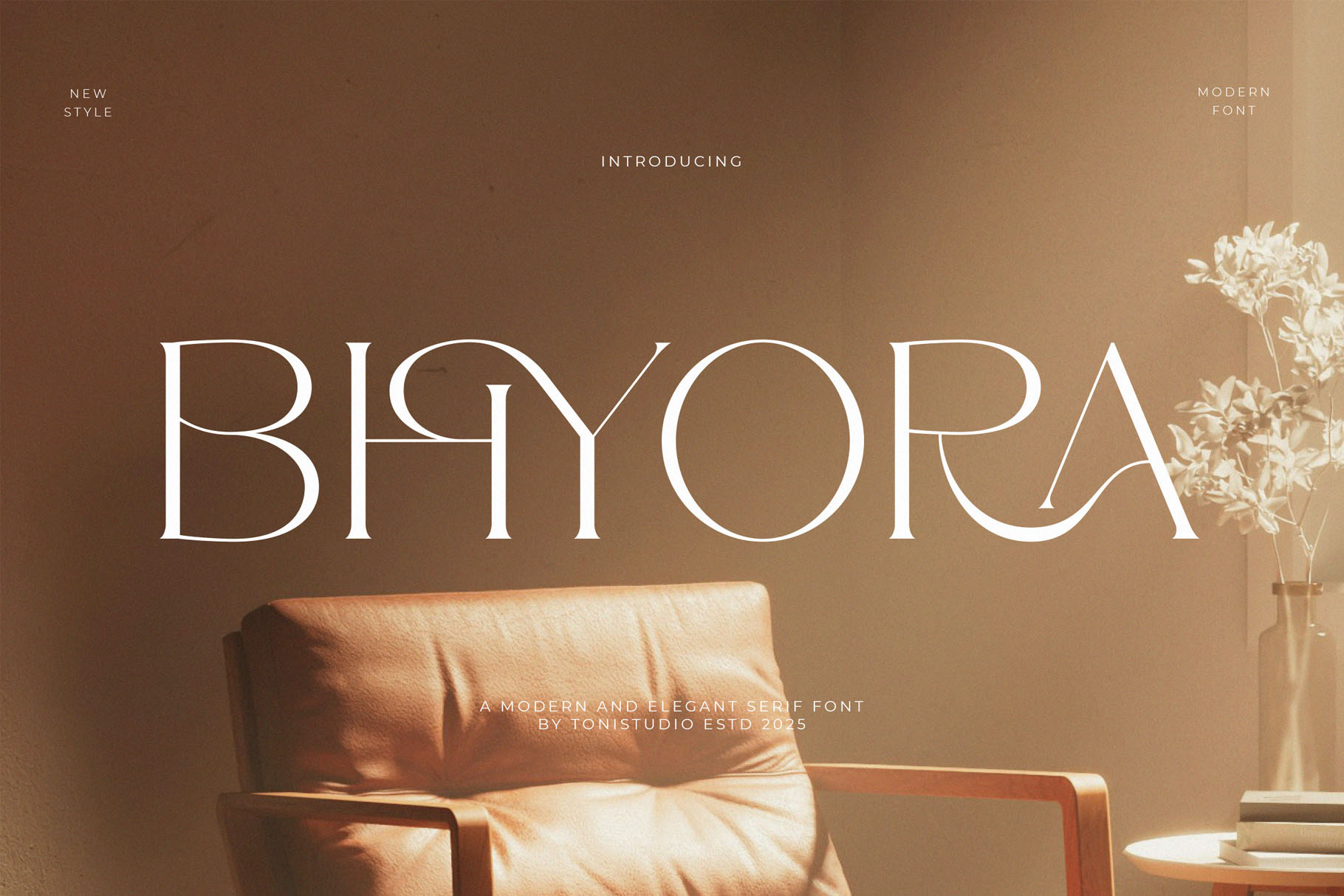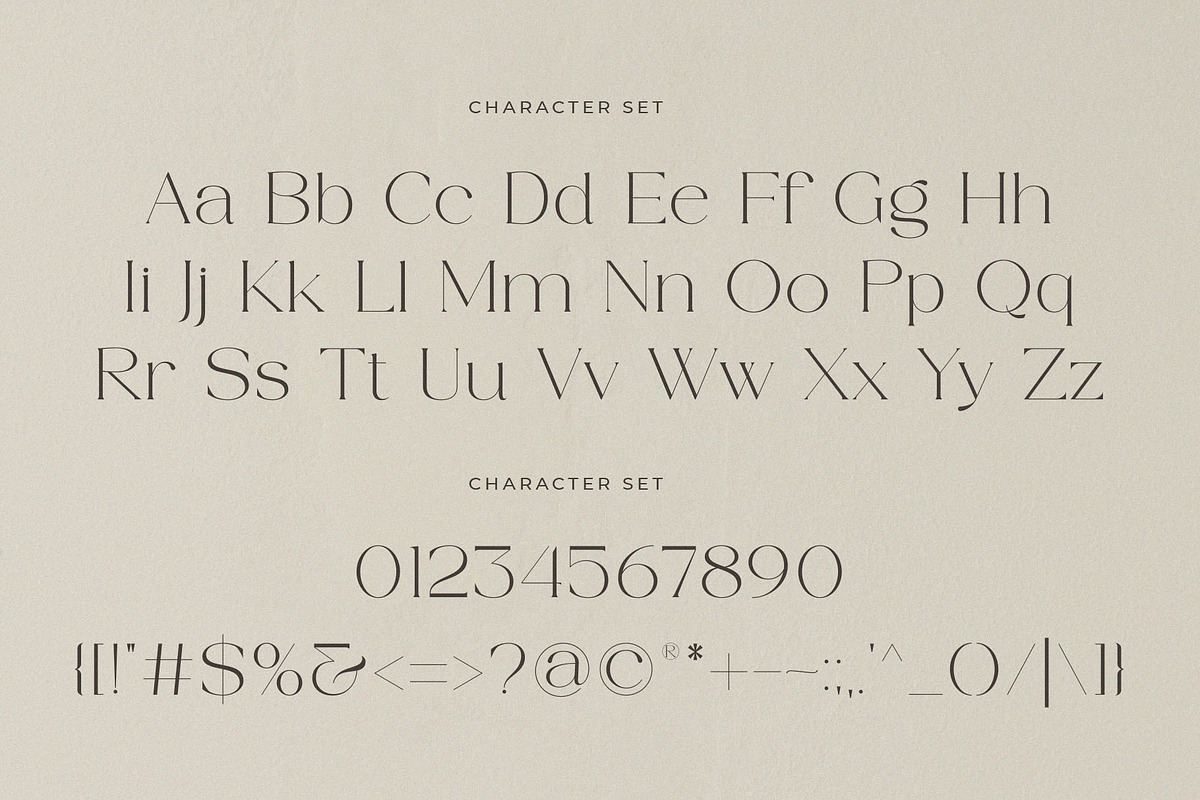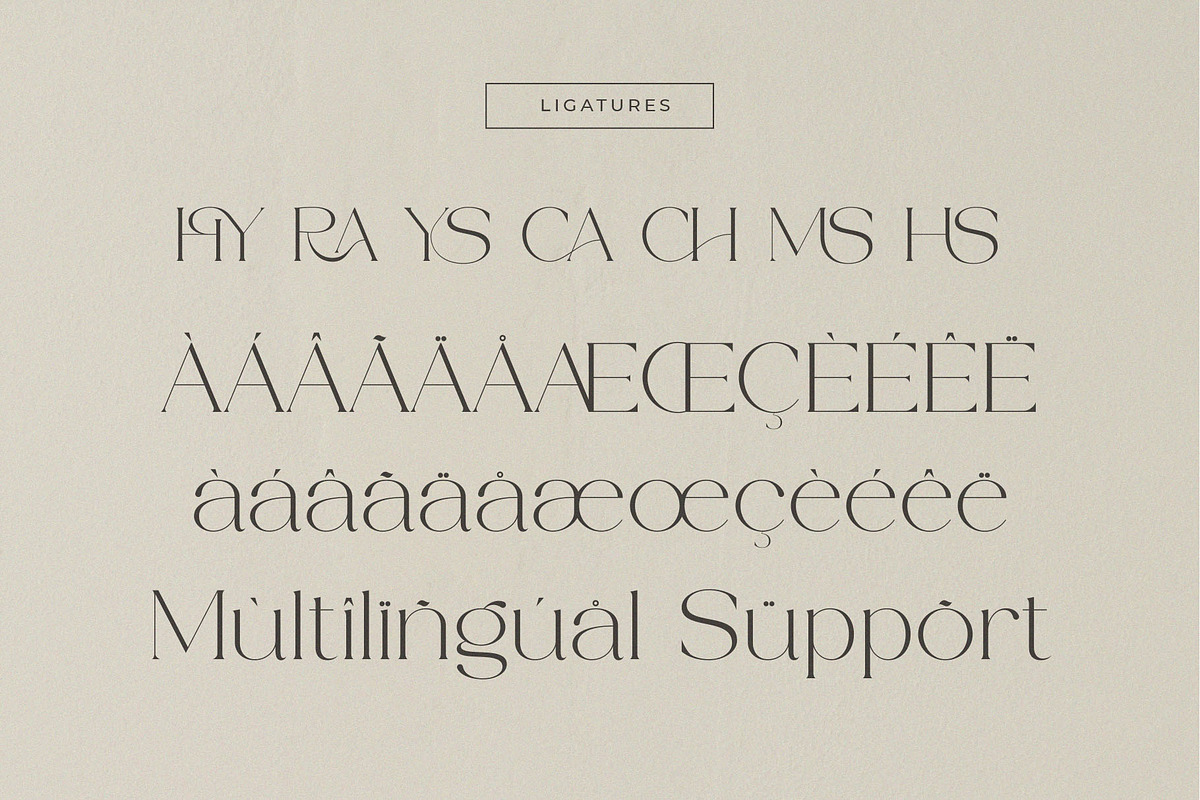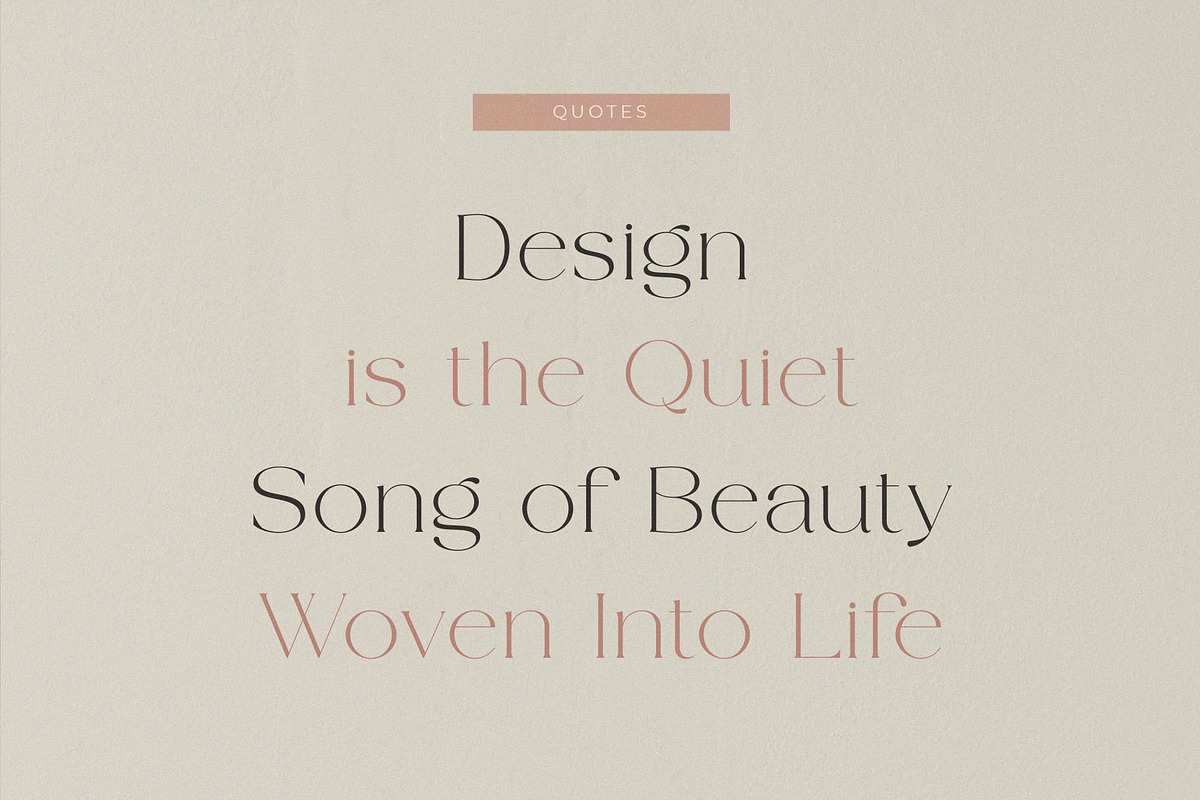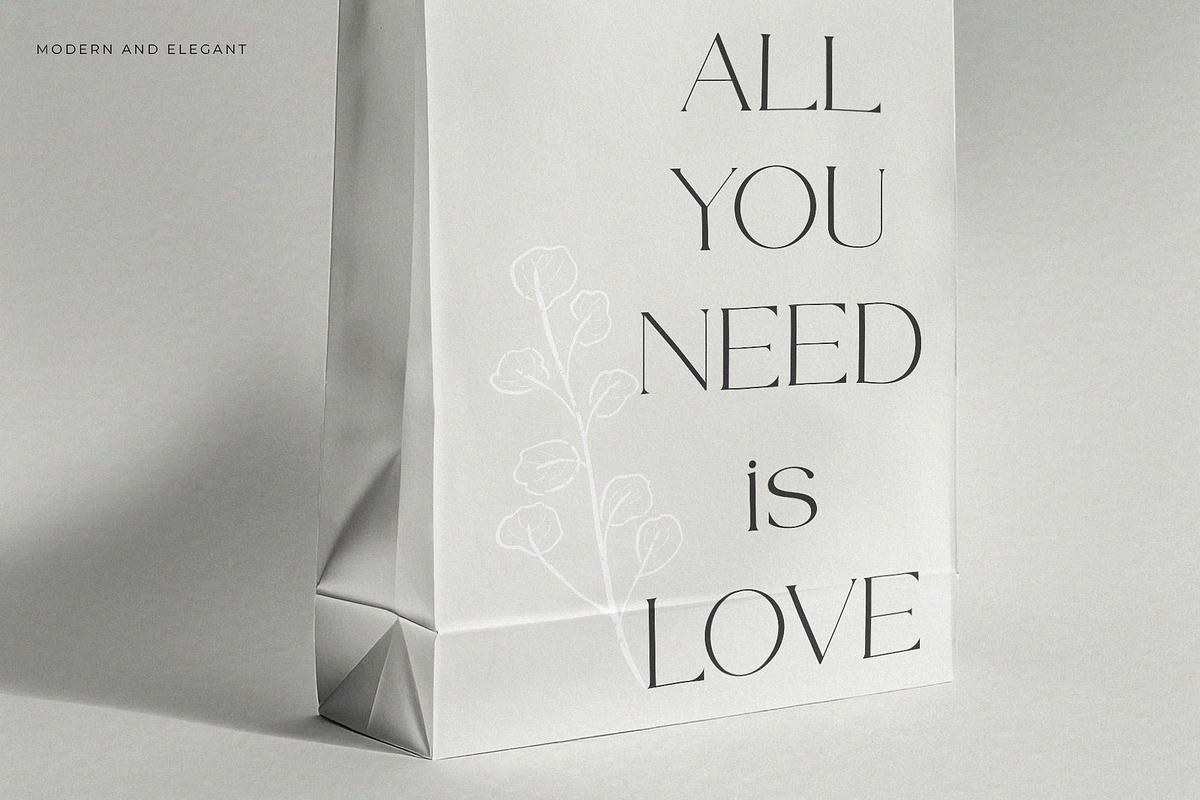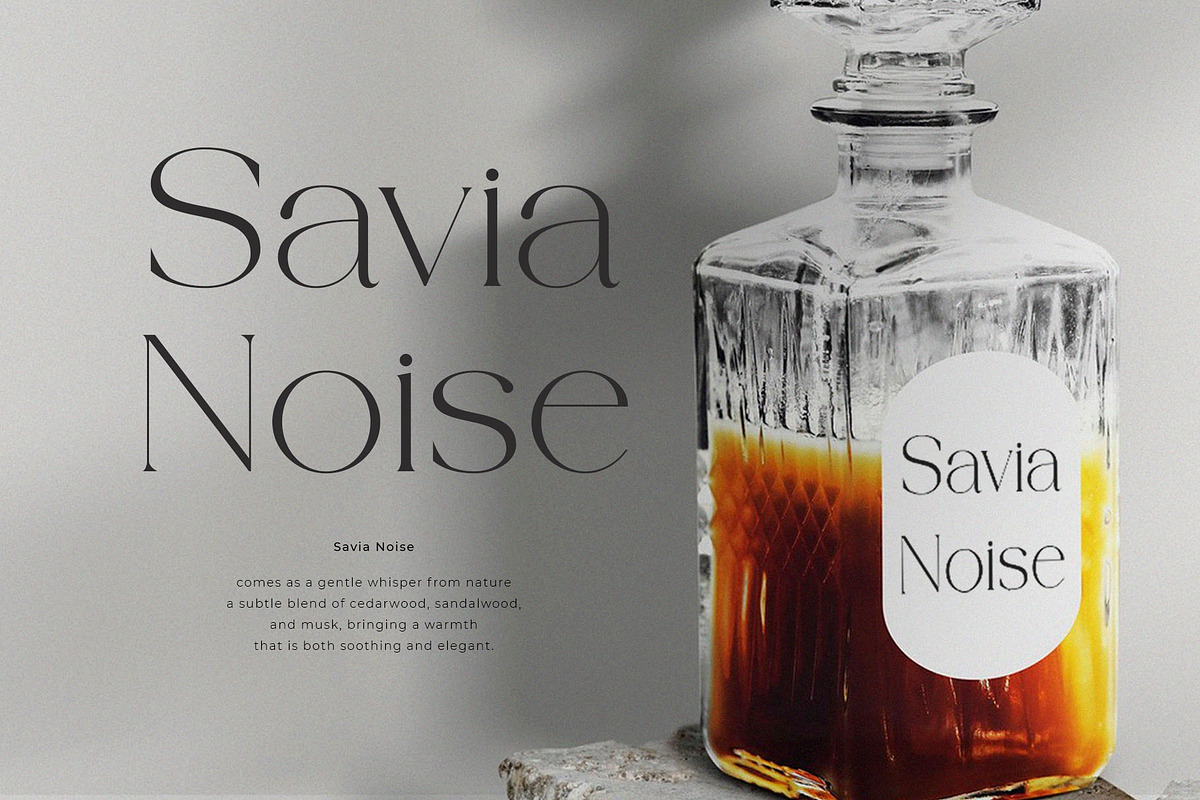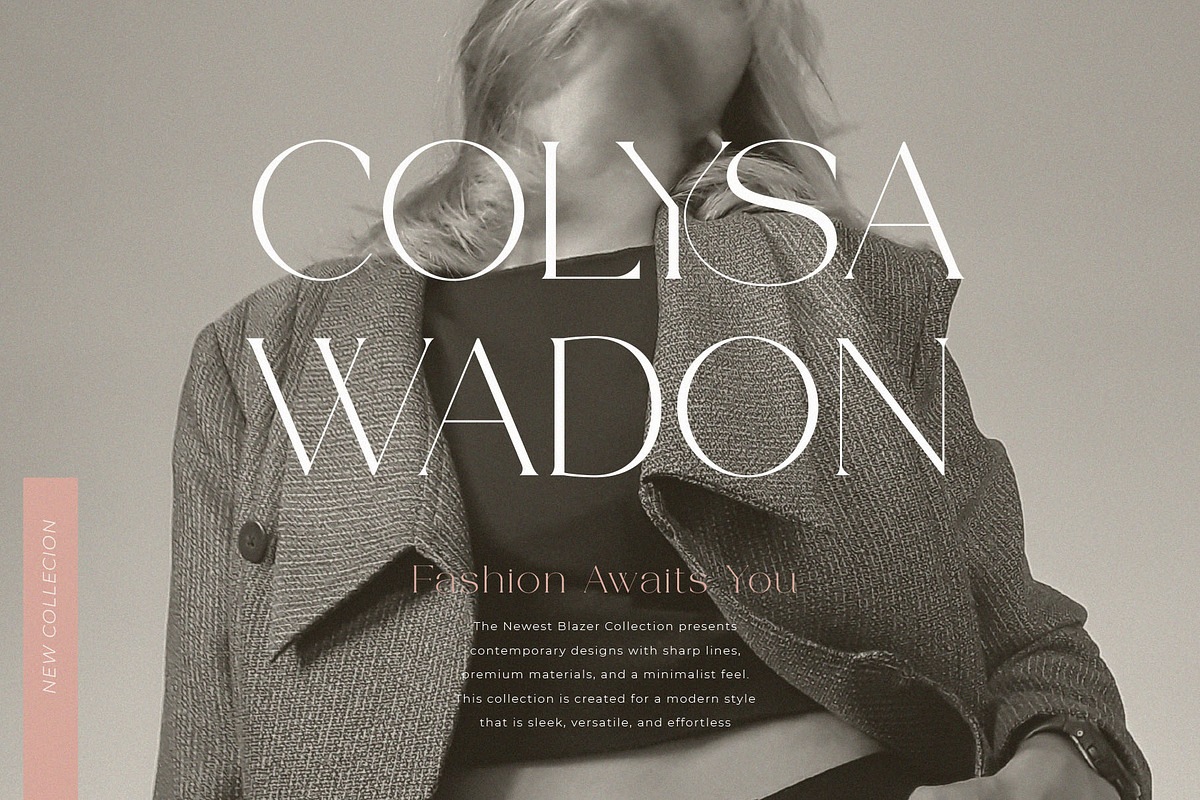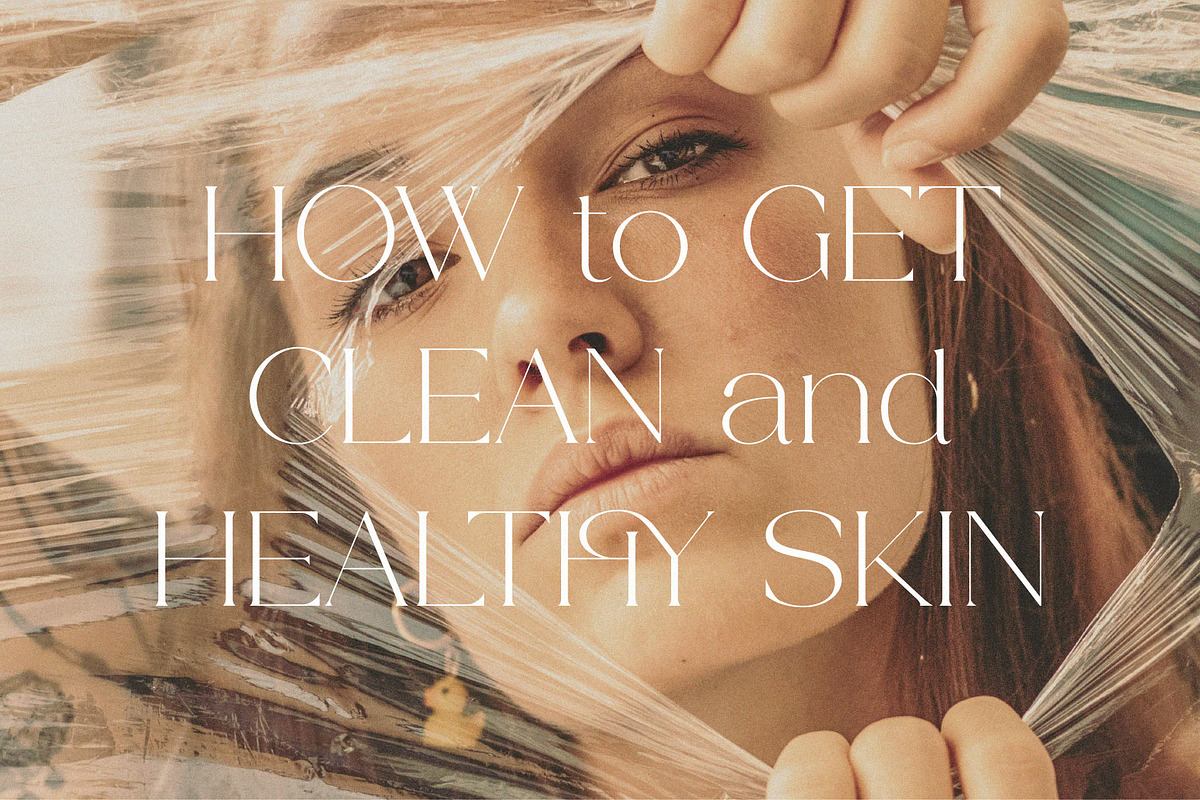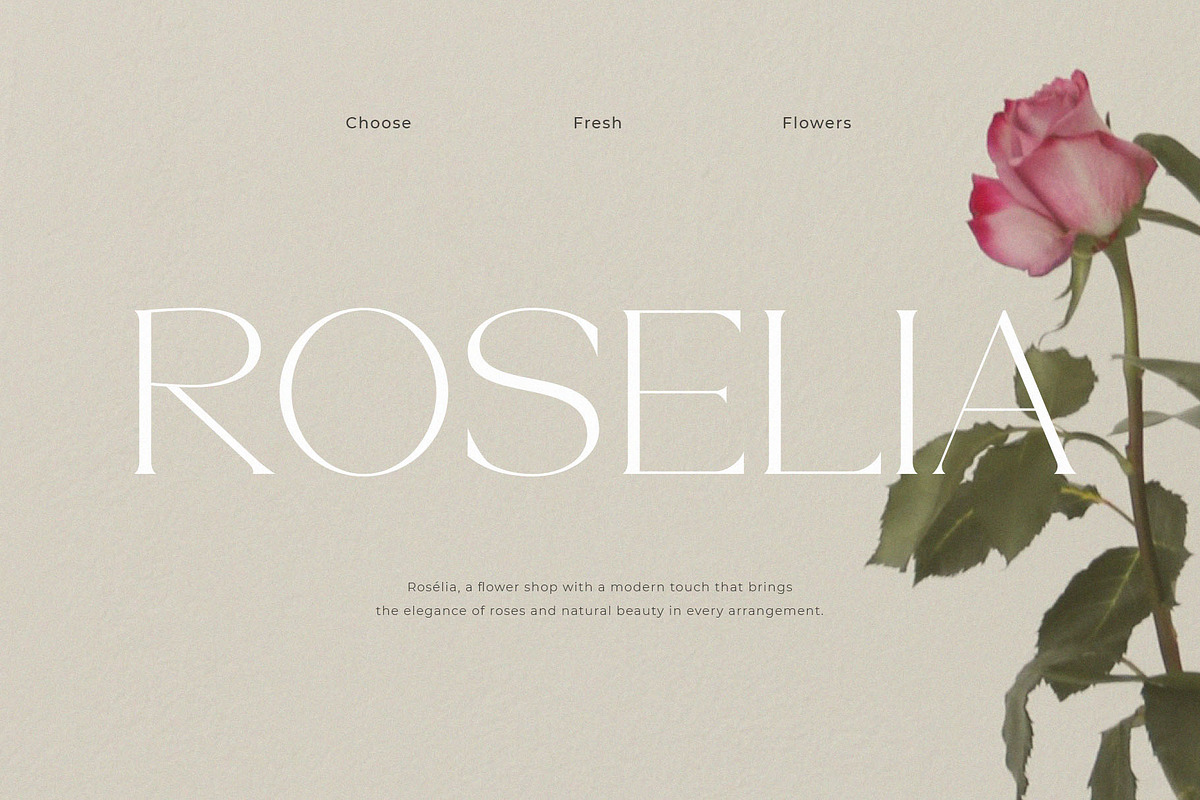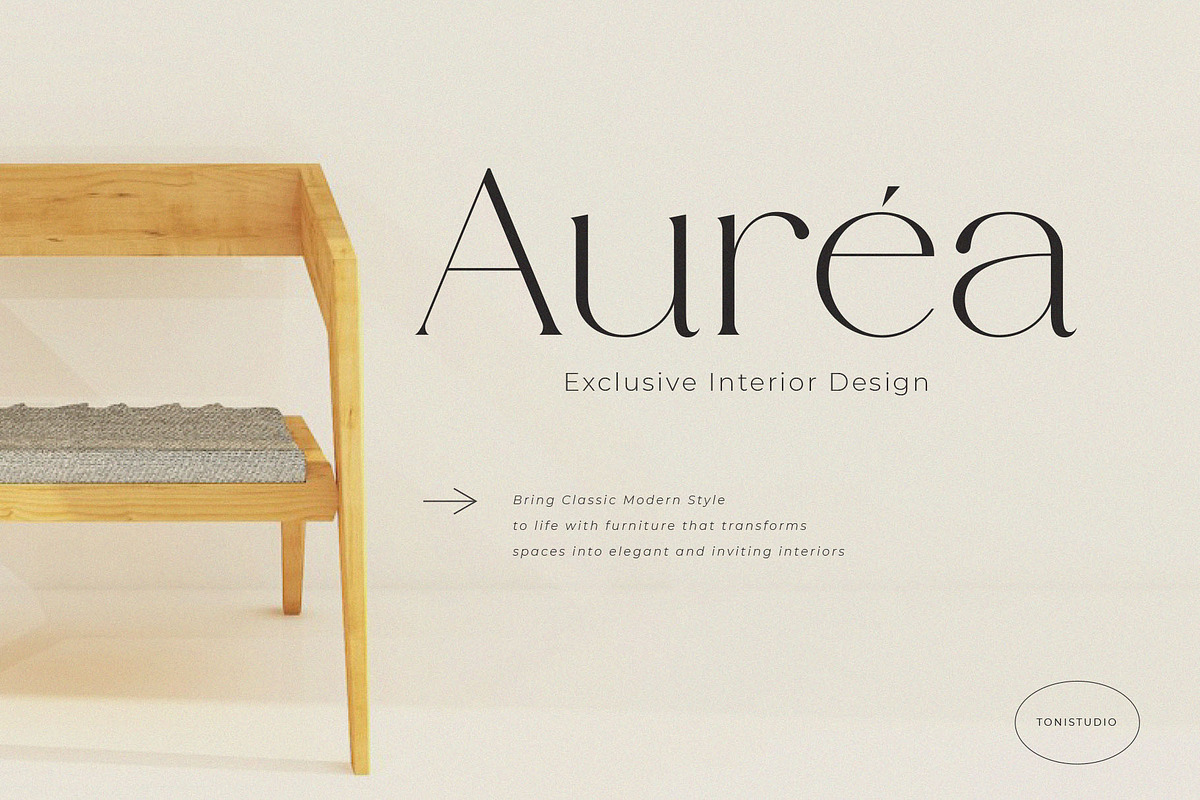
BHYORA | Modern Serif Font
BHYORA is a modern serif font designed to bring timeless elegance and sophistication into every detail of your project. Inspired by the harmony between classic beauty and contemporary style, BHYORA combines sharp serifs with smooth curves, making it perfect for branding, logos, editorial design, fashion projects, packaging, and wedding invitations. BHYORA reflects grace and strength, just like the refined strokes of its letters. Each character was carefully crafted to exude confidence, femininity, and luxury making it a perfect choice for designers who want to create a lasting impression.
Bring elegance and personality to your creative projects with BHYORA Serif Font